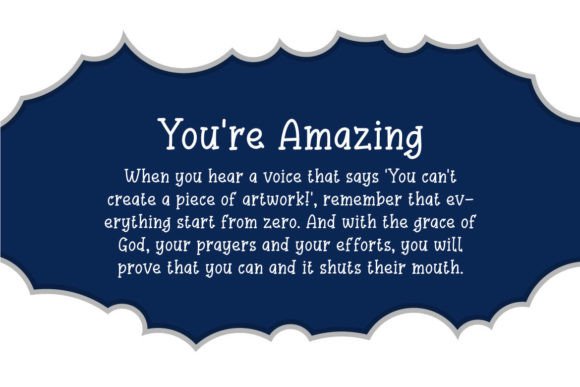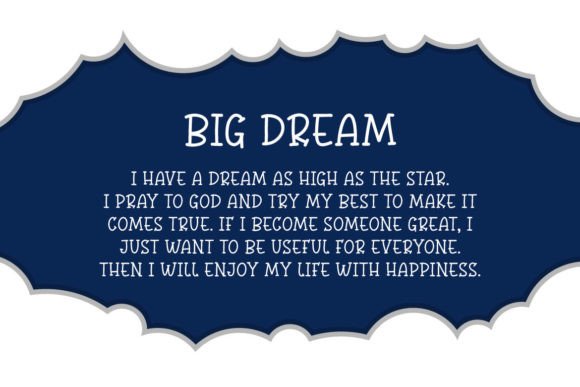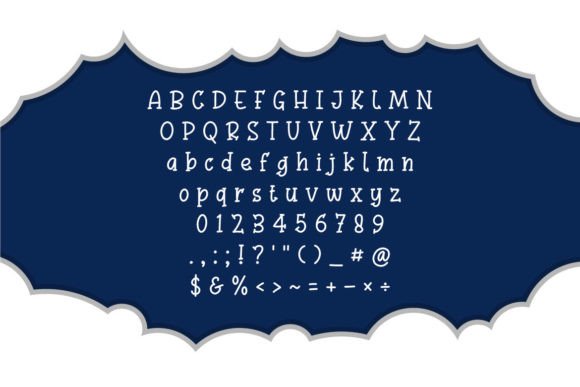
The Ultimate Guide to Funtons Font: Adding a Playful Touch to Your Designs
I’ll never forget the time I was working on a project for a children’s book, and I just couldn’t find the right font to match the playful tone of the story. The client wanted something fun, yet professional, and I was determined to deliver. That’s when I stumbled upon Funtons Font, a fun and playful serif font that instantly caught my attention. In this article, I’ll share my experience with Funtons, its features, and how to make the most of it in your designs.
My Honest Review of Funtons Font
I’ve had the pleasure of working with Funtons Font on several projects, and here’s what I think:
- ✨ **Unique character**: Funtons has a distinctive personality that sets it apart from other serif fonts.
- ✅ **Highly versatile**: It can be used for a wide range of projects, from children’s books to branding and advertising.
- 💡 **Excellent for headlines and titles**: The font’s playful and bold nature makes it perfect for grabbing attention.
However, no font is perfect, and Funtons has a few quirks:
- 🤔 **Limited use for body text**: While Funtons is great for headlines, it may not be the best choice for longer blocks of text.
- ⚠️ **Some characters may require adjustment**: Depending on the context, certain characters may need to be adjusted for optimal spacing and readability.
- Experiment with **OpenType features** like ligatures and stylistic alternates to add more personality to your text.
The Story Behind Funtons Font
Funtons Font was designed with the goal of creating a fun and playful serif font that would bring a smile to people’s faces. The designer, inspired by the world of children’s books and cartoons, aimed to craft a font that would be both whimsical and professional. With its unique character and versatility, Funtons has become a popular choice among designers and crafters.
| Font Name | Funtons Font |
| Author | Mightyfire |
| What makes Funtons Font unique? | Funtons Font has a distinctive personality that sets it apart from other serif fonts, making it perfect for adding a playful touch to your designs. |
| Is Funtons Font suitable for body text? | While Funtons is great for headlines and titles, it may not be the best choice for longer blocks of text. |